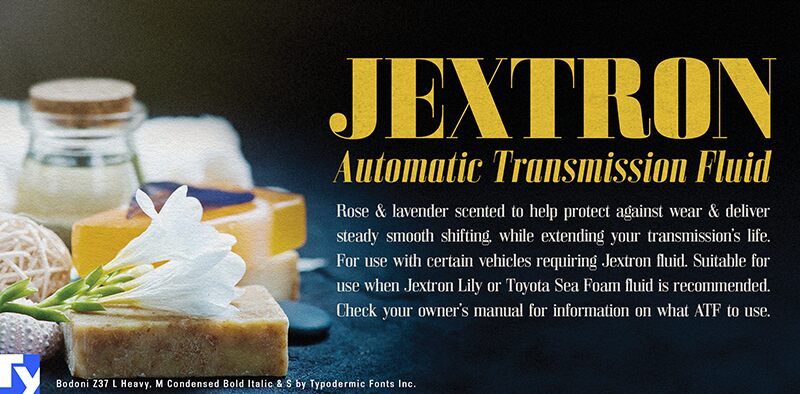
Bodoni Z37 font family is a timeless masterpiece by Typodermic Fonts, presented as a free font that elevates any design project with its inherently authoritarian structure. The family consists of 2 font styles, which come together providing a sophisticated and formal edge, channeling the elegant influence of the renowned Bodoni style. Ideal for projects that require a vintage-inspired touch, Bodoni Z37 communicates professionalism and refinement through every letter and word.
Suitable for book covers, headings, website designs, advertisements, invitations, branding, editorial designs, packaging, posters, and brochures, Bodoni Z37 adds a hint of elegance and history. It is perfect for creating visual harmony and prestige in both printed and digital media.
Bodoni Z37 is a contemporary interpretation of Giambattista Bodoni's geometric elegance. Drawn with careful attention to proportion and rhythm, it preserves the dramatic contrast and refined structure that define the classic style while adapting it for modern typography.
Flat-sided curves subtly emphasize Bodoni's geometric spirit, keeping the forms crisp on today's high-resolution screens without losing their warmth. The result is a design that balances drama with discipline, making it perfect for fashion editorials, art books, luxury packaging, and other projects where clarity and sophistication are essential.